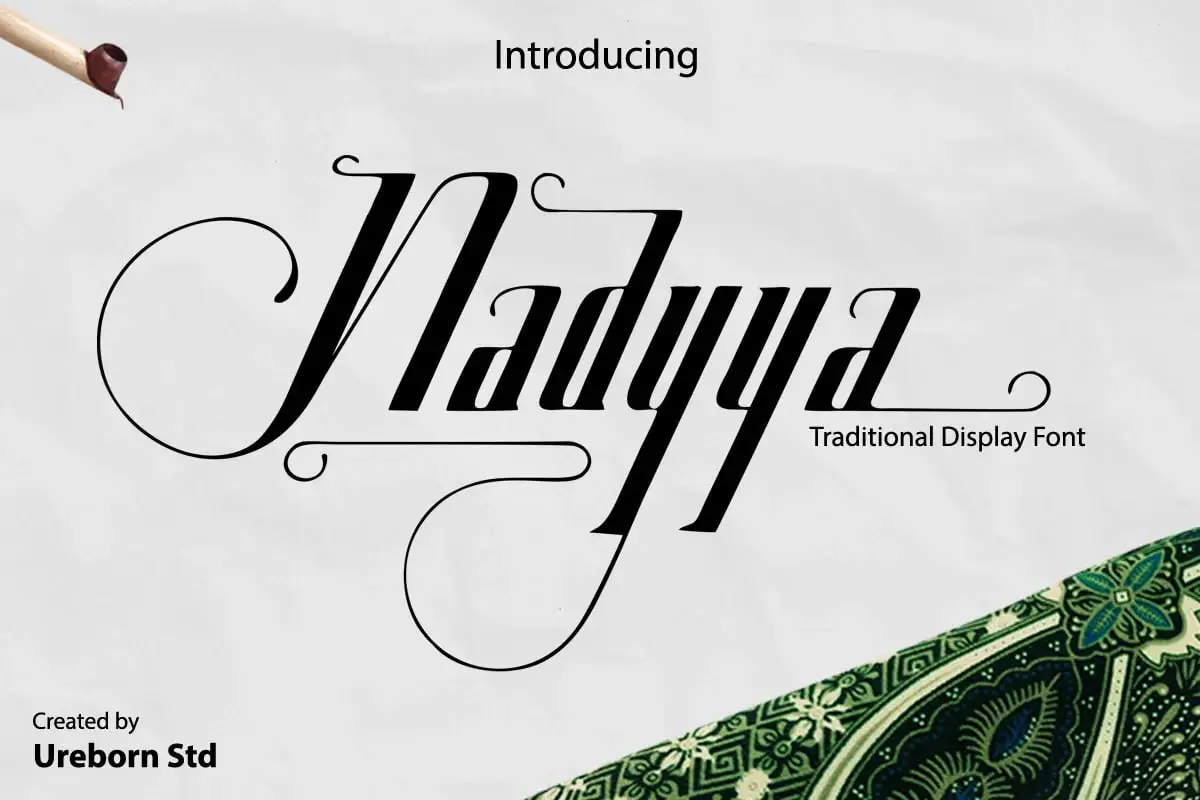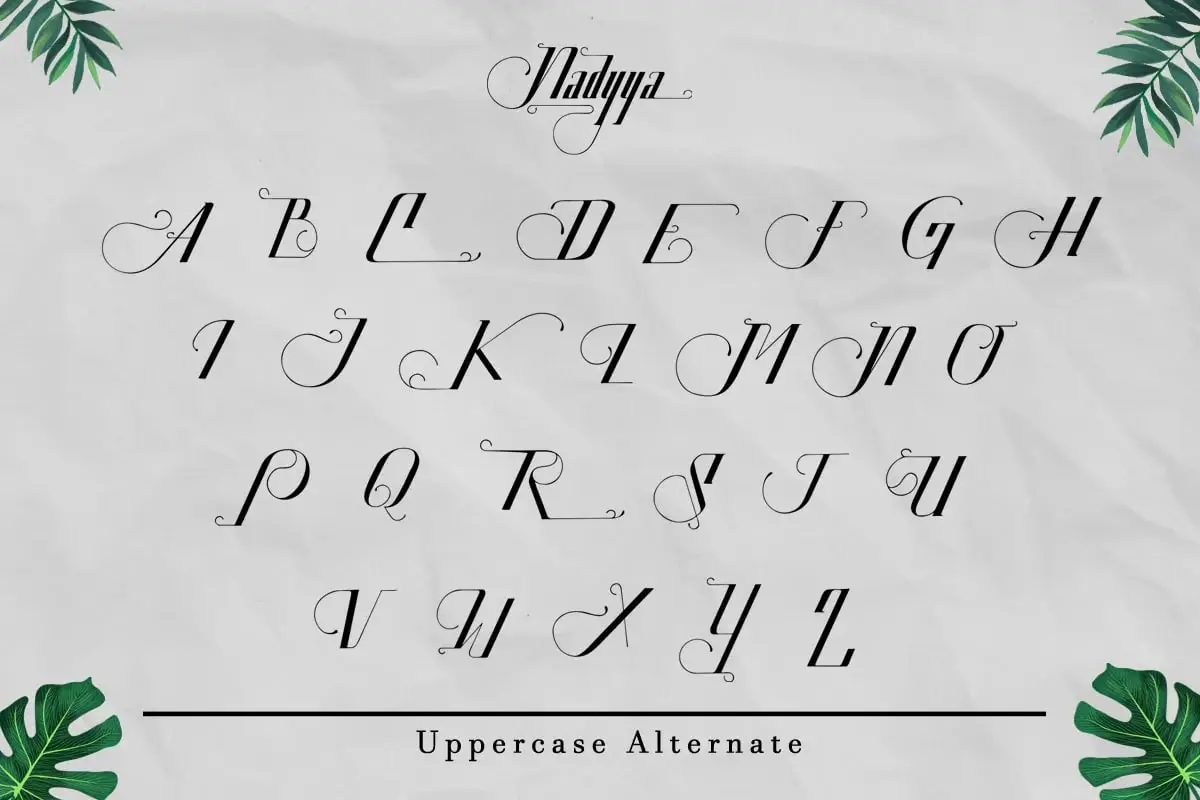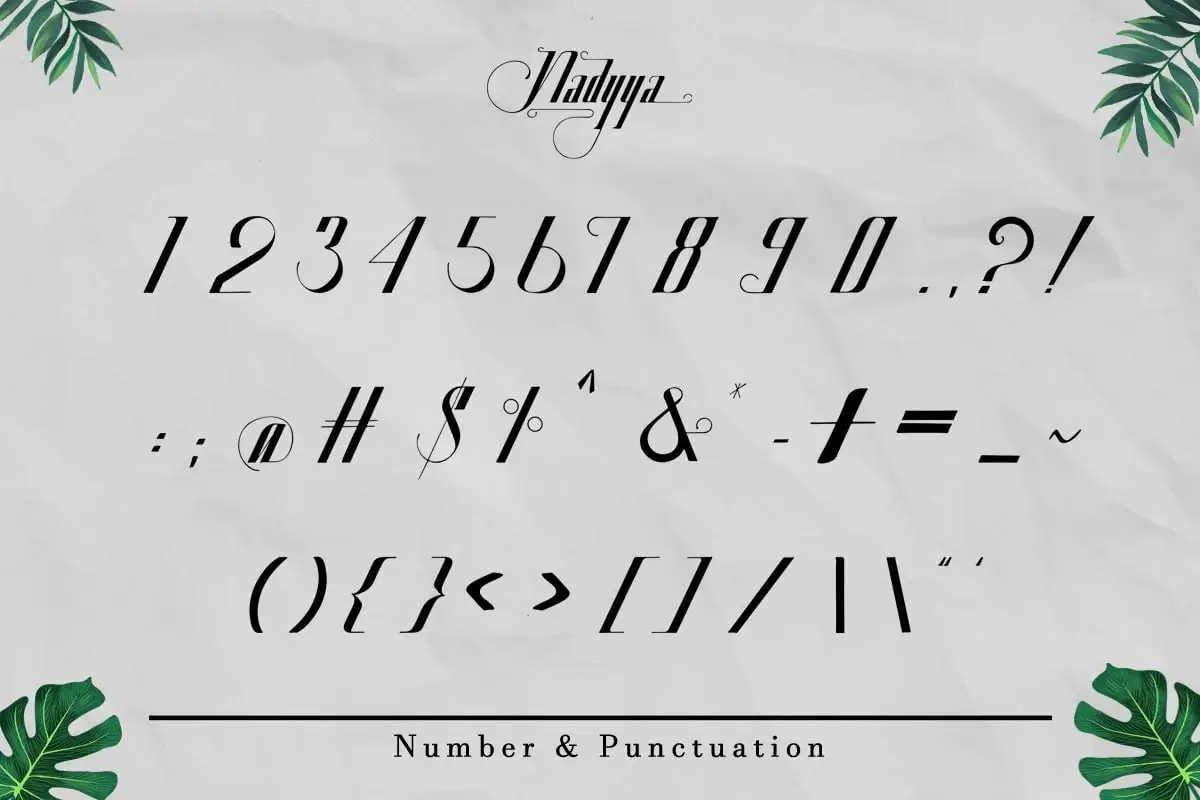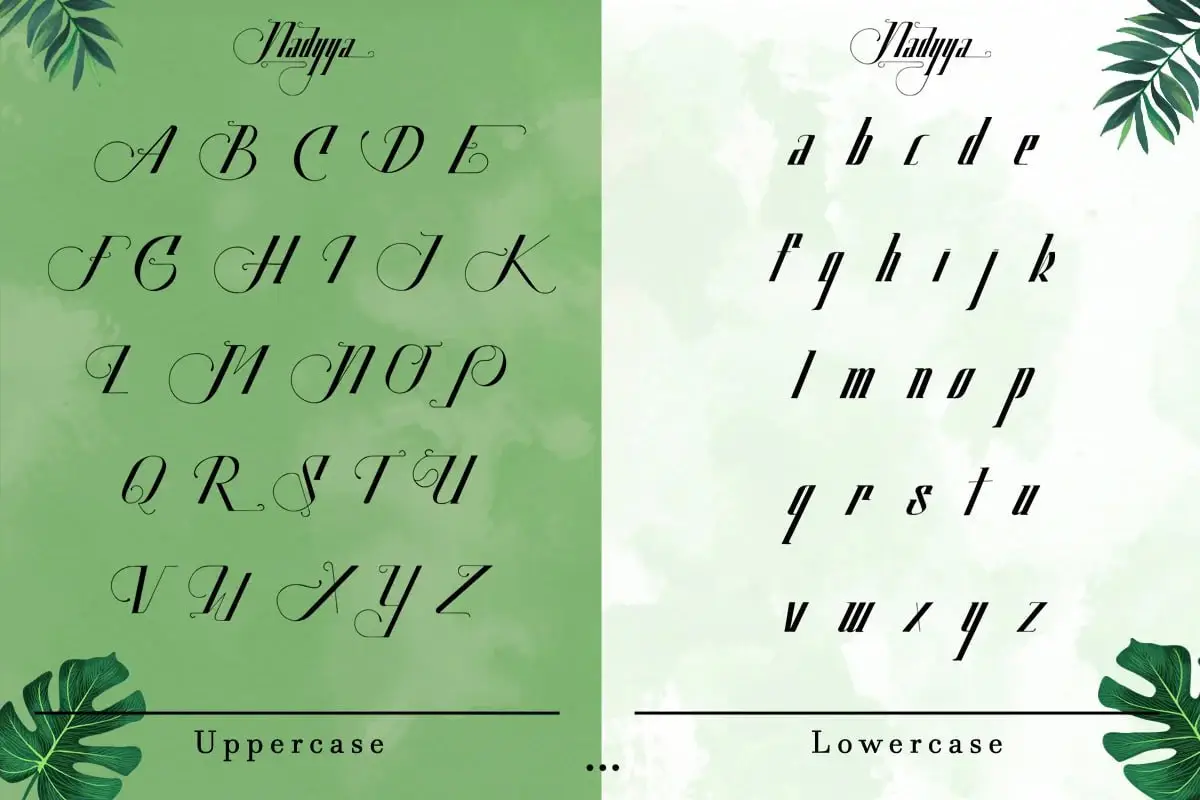
Nadyya-Traditional Display Font
The Nadyya-Traditional Display Font is a stunning typeface that captures the essence of classic design with a modern twist. Perfect for a variety of creative projects, this font is ideal for branding, logos, posters, and any print or digital media that requires a touch of elegance.
• Unique traditional display style
• Characters include accents and special symbols
• Well-suited for both headlines and body text
• Utilize for branding projects to create a memorable identity
• Incorporate into web design for an eye-catching aesthetic
• Ideal for print materials like invitations, flyers, and brochures